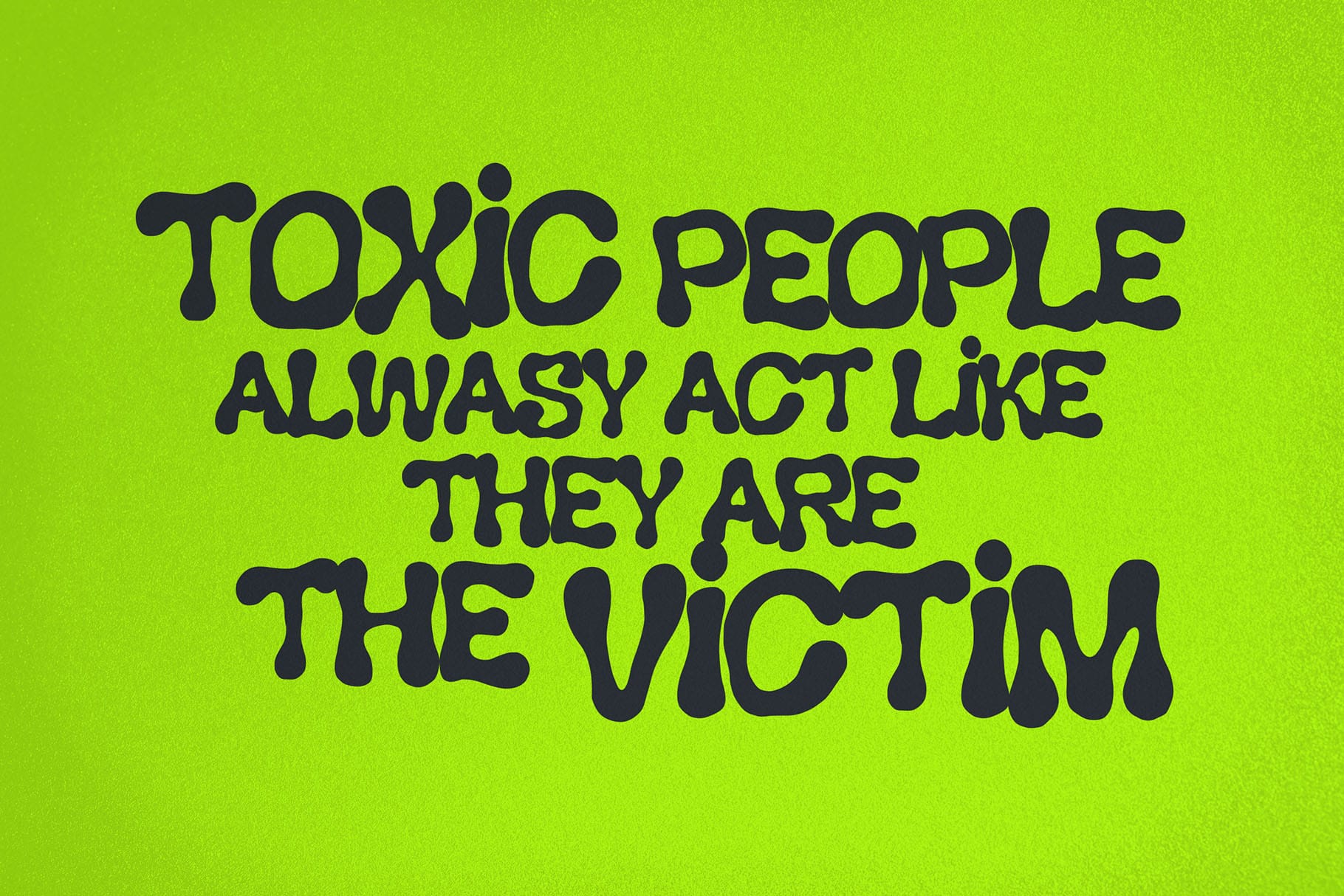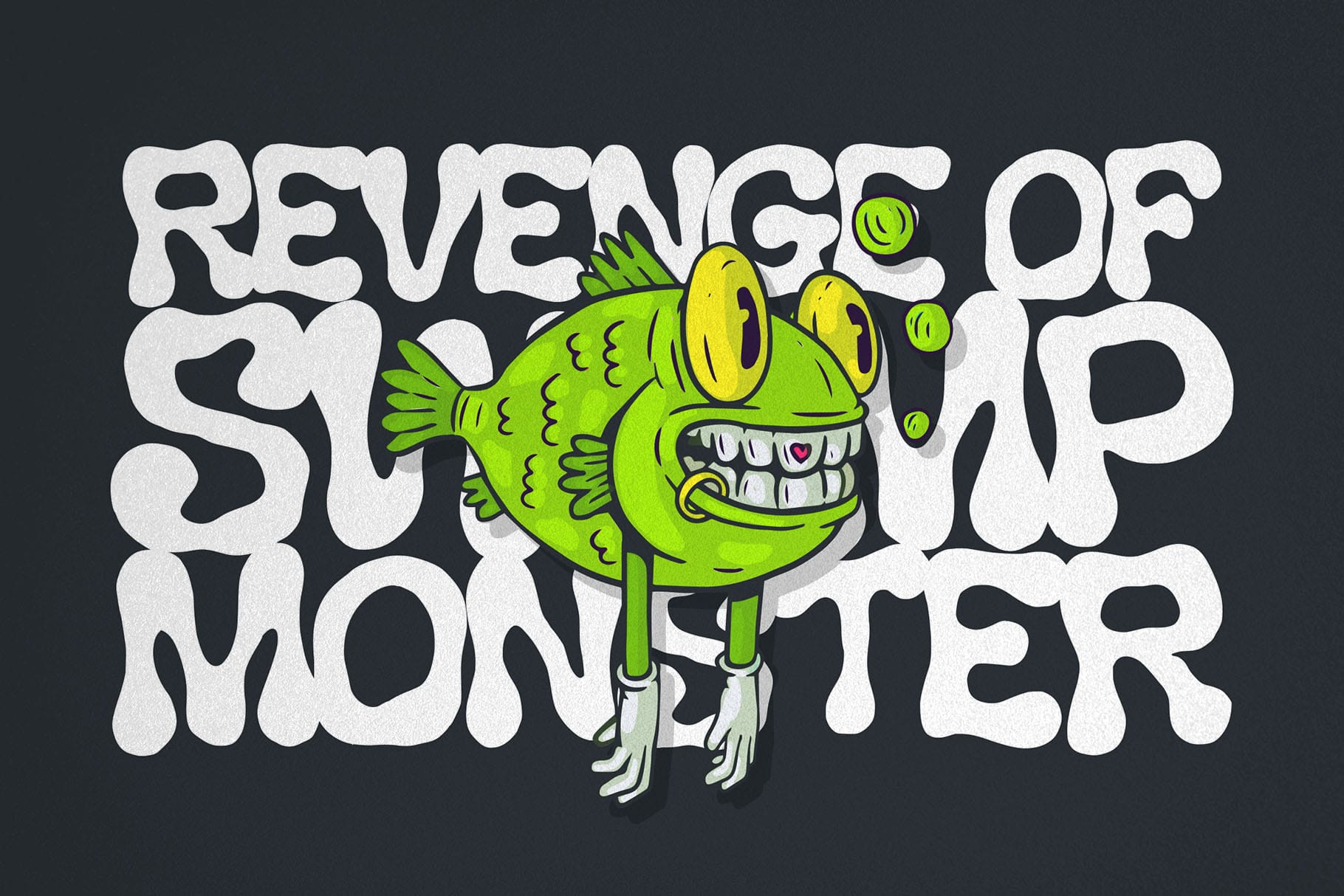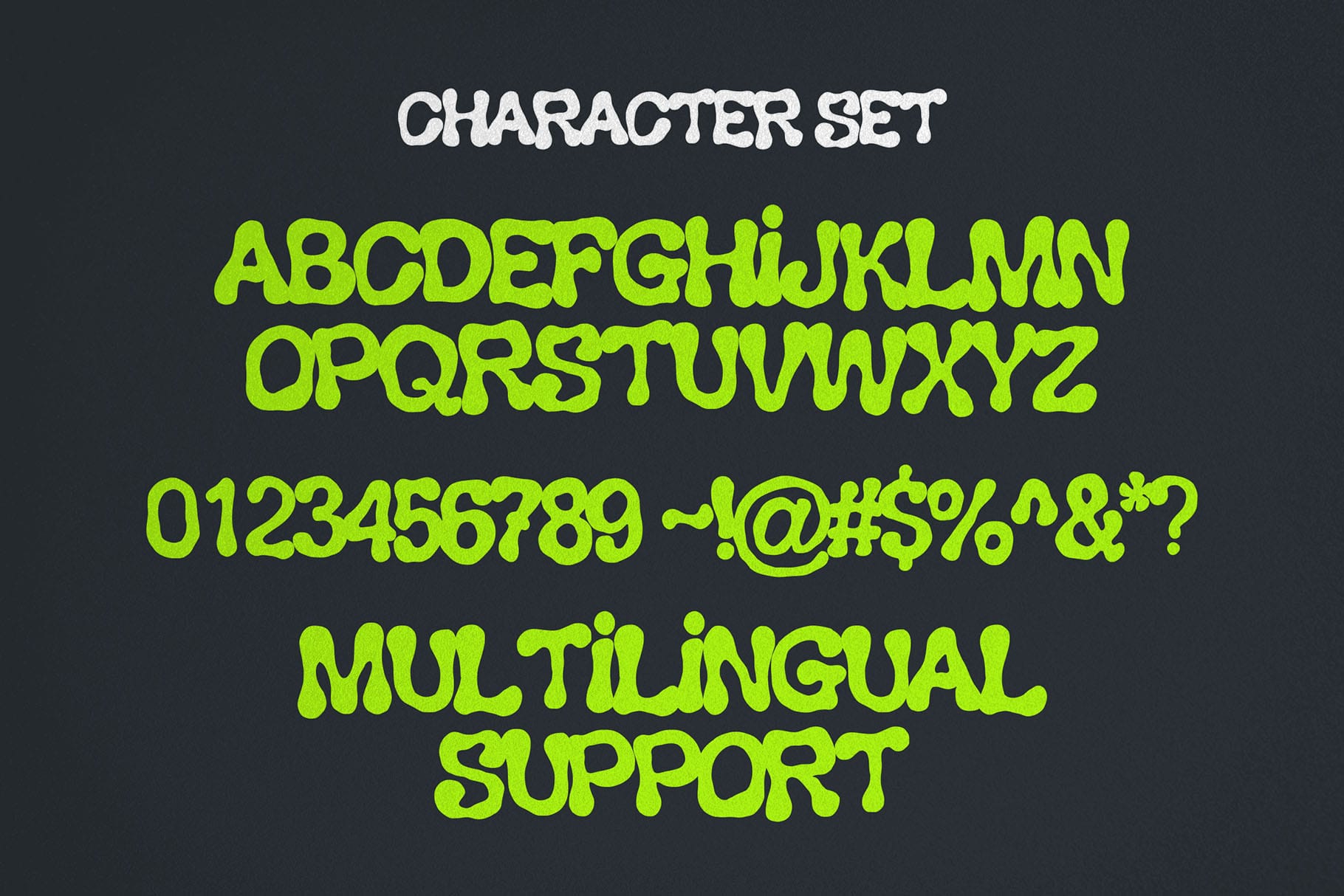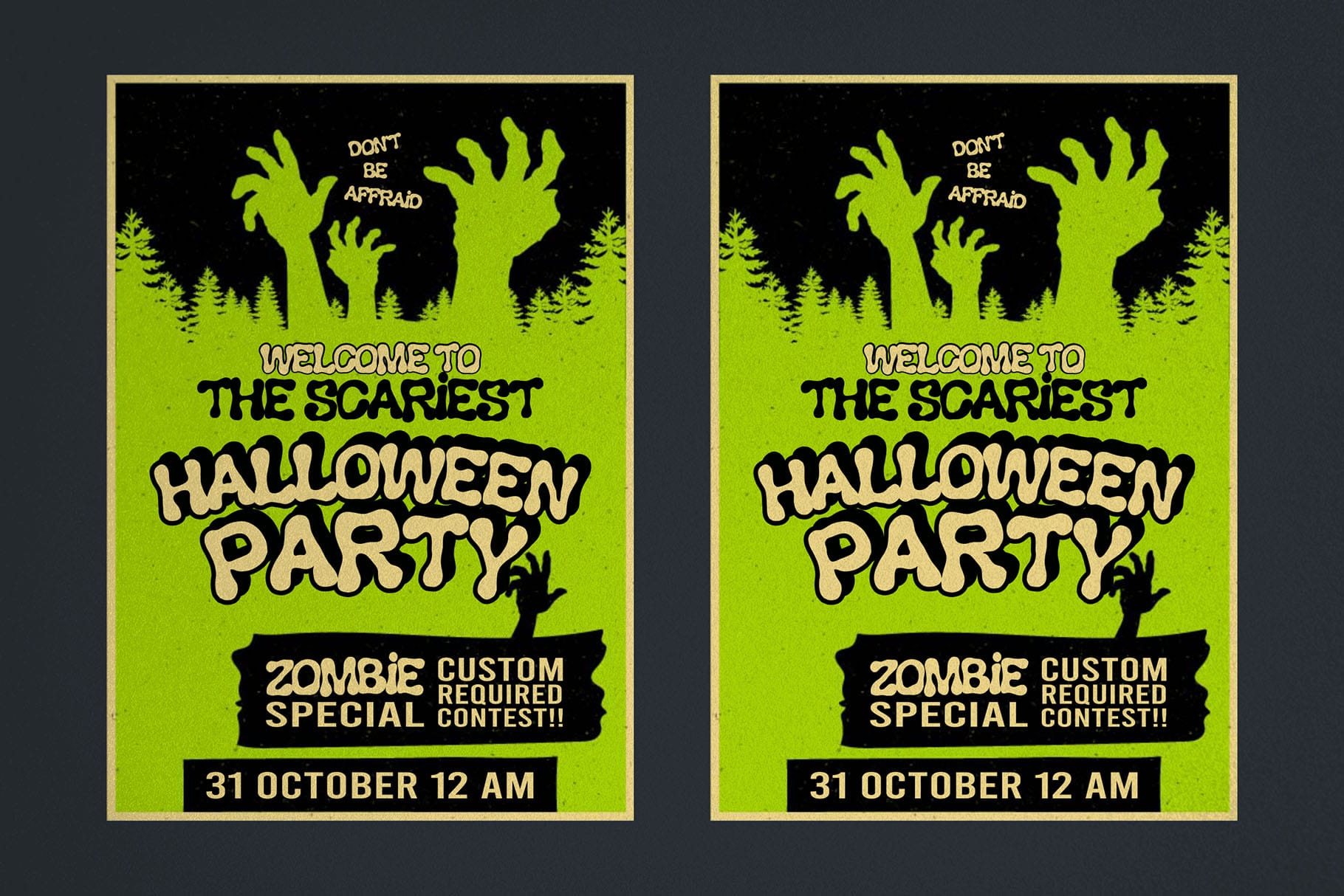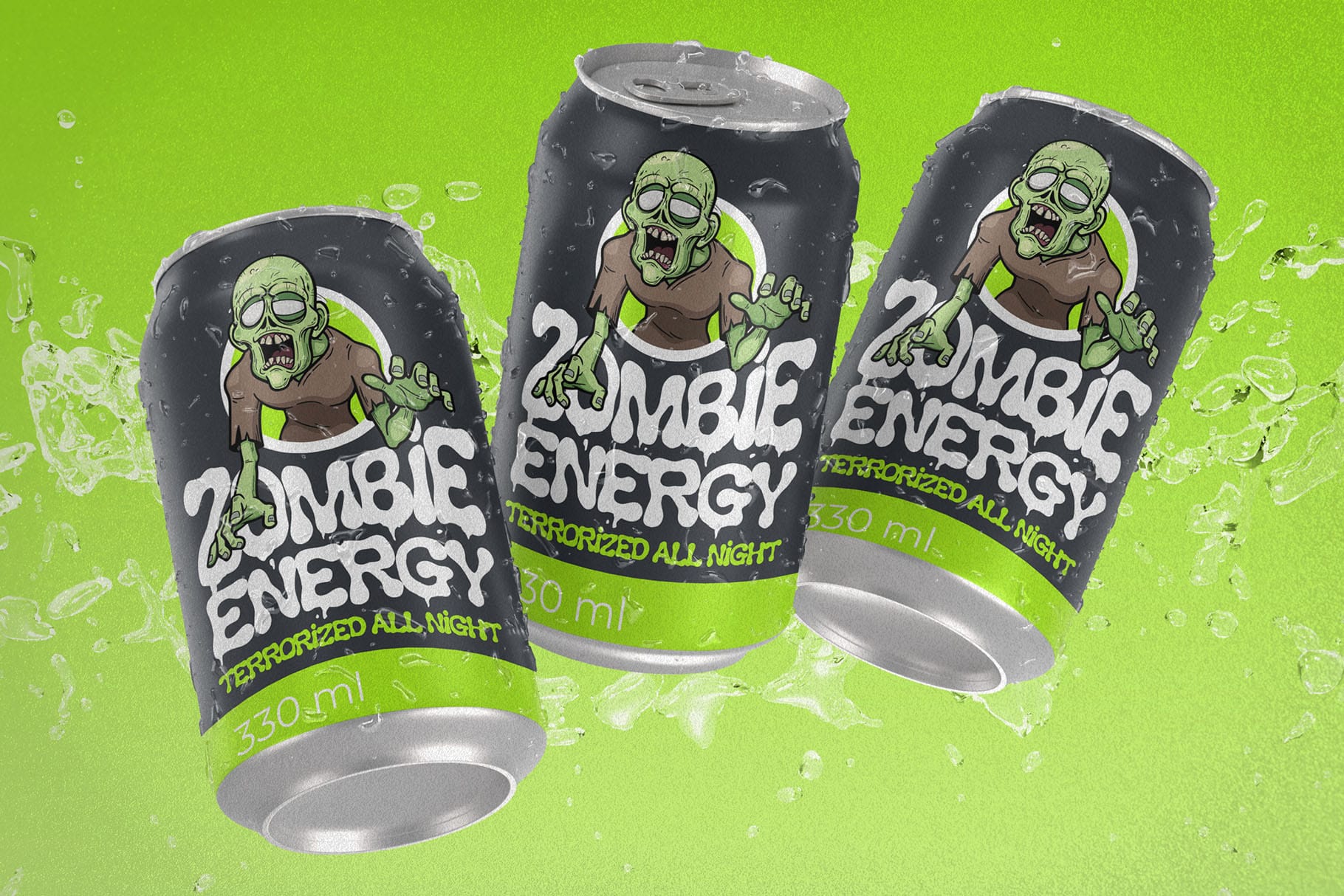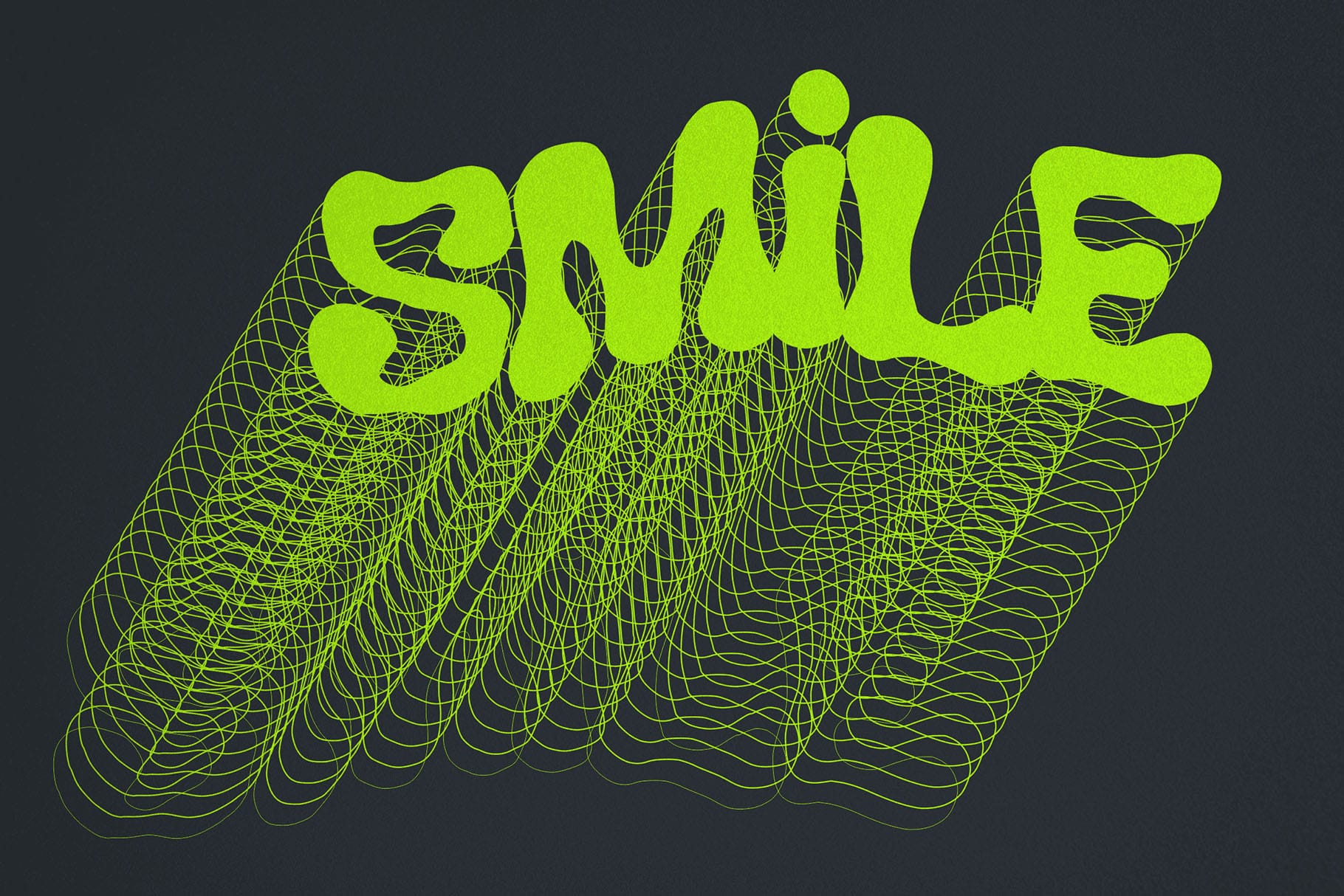
Grims Acid – Liquid Halloween Display Font for Spooky Design
When it comes to creating eerie, bold, and unforgettable designs, nothing works better than a liquid Halloween display font. Grims Acid – Liquid Halloween Display Font is a dripping, spooky-inspired typeface crafted for logos, posters, party invitations, and seasonal branding. With its unique liquid forms and horror-inspired atmosphere, this liquid Halloween display font instantly sets the mood for Halloween events, dark music promotions, and edgy creative projects.
If you need a typeface that combines bold character with chilling energy, Grims Acid is the perfect font for your toolkit.
Liquid Halloween Display Font with Dripping Style
Grims Acid is not just another spooky typeface. As a liquid Halloween display font, it captures the visual essence of slime, acid, and dripping blood. Its grotesque letterforms make it perfect for horror movie posters, haunted house branding, scary flyers, and Halloween party campaigns.
Unlike regular decorative fonts, Grims Acid balances readability with strong visual personality. It’s bold enough for large titles and creative enough to carry an entire design theme.
Key Features of Grims Acid – Liquid Halloween Display Font
Every designer wants style and practicality. Here’s what makes Grims Acid – Liquid Halloween Display Font essential:
- All Caps Font: Perfect for strong and spooky titles.
- Multilingual Support: Extended Latin coverage for international projects.
- Alternates in Number: Creative variations to keep your typography fresh.
- Liquid Dripping Style: Unique slime-inspired aesthetic.
- Optimized for Display Use: Perfect for posters, logos, banners, and digital media.
Why Designers Love Grims Acid
Designers across industries love Grims Acid because it does what every liquid Halloween display font should: it scares, excites, and grabs attention.
- Instant Atmosphere: One look at Grims Acid and your design screams Halloween.
- Versatility: Great for both print and digital projects.
- Global Appeal: Multilingual support makes it usable for international campaigns.
Grims Acid for Logos and Halloween Branding
When you’re building a Halloween-themed brand, from haunted attractions to seasonal product packaging, typography plays a huge role. Grims Acid, as a liquid Halloween display font, creates chilling logos and wordmarks that stand out in crowded markets.
Use it for horror-inspired branding, gothic projects, or even Halloween merchandise. Its dripping design transforms simple text into spooky visual identity.
Grims Acid for Posters and Flyers
Halloween posters and party flyers demand fonts that are scary yet fun. Grims Acid is built for this. This liquid Halloween display font dominates event posters, music flyers, haunted house ads, and seasonal billboards.
The dripping style adds drama and energy, ensuring your posters grab attention both offline and online.
Grims Acid in Digital Media
Digital Halloween campaigns need bold fonts that shine on screens. Grims Acid is the perfect liquid Halloween display font for YouTube titles, Twitch overlays, horror trailers, and Halloween social media promotions.
Its bold uppercase style works beautifully for thumbnails, while alternates in numbers add creative variation. If you want to scare and entertain at the same time, Grims Acid is your go-to font.
- Character Set: All Caps, Numbers, Alternates, Punctuation
- Category: Liquid Halloween Display Font
- Best Uses: Halloween Posters, Logos, Party Flyers, Horror Branding, Scary Digital Media
Font Pairing Suggestions
Pairing makes fonts even more powerful. Grims Acid pairs especially well with other horror and dripping typefaces:
- Melted Brain Dripping Halloween Font – adds layered, grotesque depth to Grims Acid’s liquid horror look.
This combination creates a dynamic duo for posters, logos, and Halloween-themed campaigns.
Why Grims Acid is the Liquid Halloween Display Font You Need
Typography is storytelling, and Grims Acid tells the story of fear, slime, and spooky Halloween magic. As a liquid Halloween display font, it doesn’t just decorate—it transforms. Every project, from posters to branding, gains a unique horror atmosphere with this typeface.
With alternates in numbers, multilingual support, and dripping all caps, Grims Acid is built for professional creatives who want more from their seasonal designs.